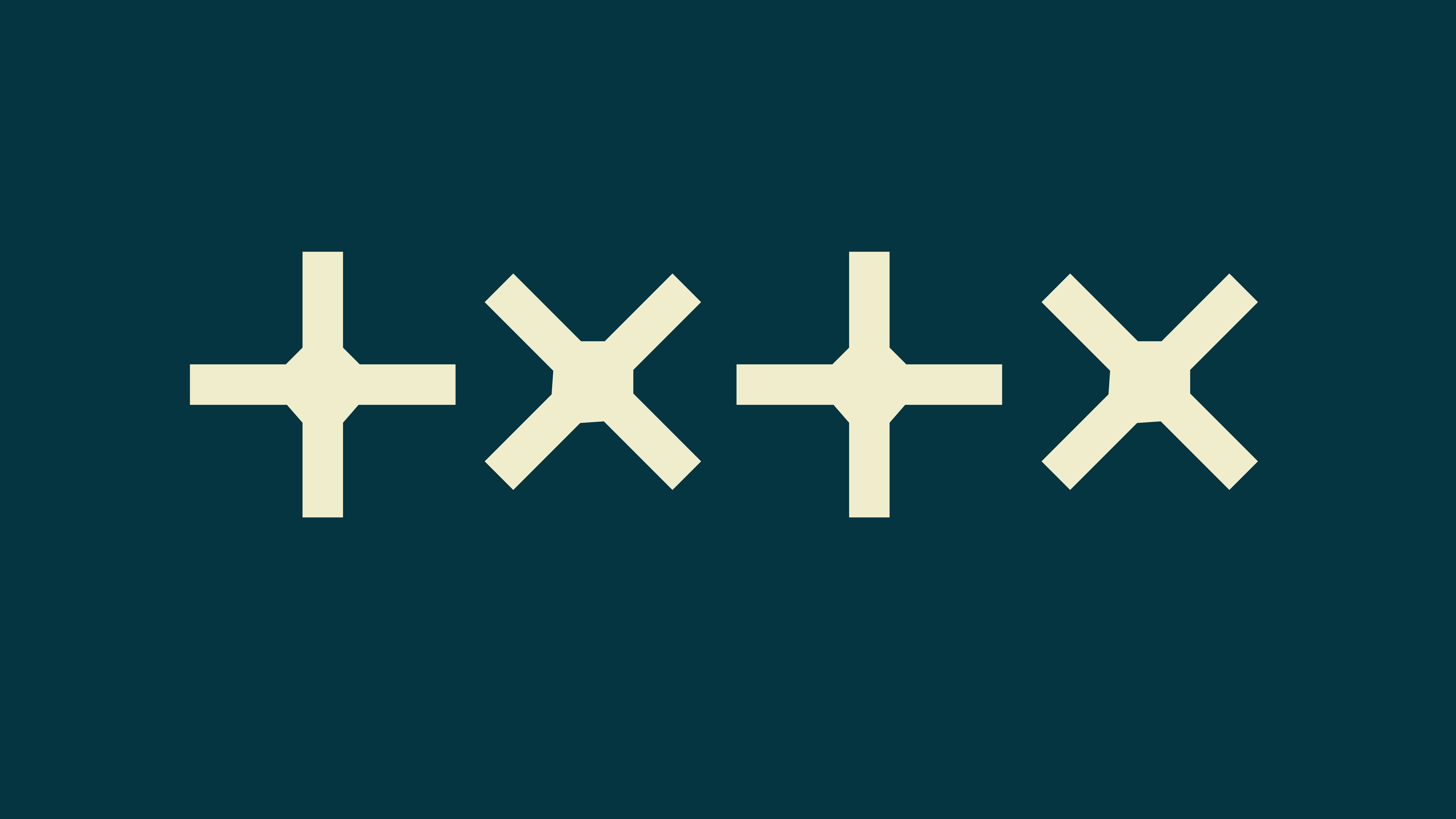
F37 Tangental Times
Known for experimental and typographic excellence, Spin has developed three fonts released on F37×.
At a glance F37 Tangental Times appear to share some similarities to F37 Flick, in particular the bifurcated serifs. But that is where the similarities end. The most notable feature of F37 Tangental Times are the curve-less round letter forms. Made from multiple short straight segments that give the font an interesting crude feel in large sizes. When used small, the angularity disappears into smooth curves. This crudeness is offset by the surprisingly elegant and humanist touches to the the letter forms. F37 Tangental Times comes in four weights from Thin to Regular.
The Designer
SPIN is the creative output of a London-based studio which has been rotating between the poles of art and design since 1992.
This revolution has so far been televised, animated, printed, photographed, pixelated and painted, but rather than offer singular or static solutions, their vision is for an ongoing dialogue between a conceptual practice and its many applications in the real world. In both the virtual and physical realms, SPIN push and play with such boundaries when making work for the halls of commerce and retail, or for the walls of exhibitions. Always innovative and responsive, but constantly enquiring, SPIN create organic visual languages, lending design impetus to their art projects, while removing the type from typography and giving it a new face.